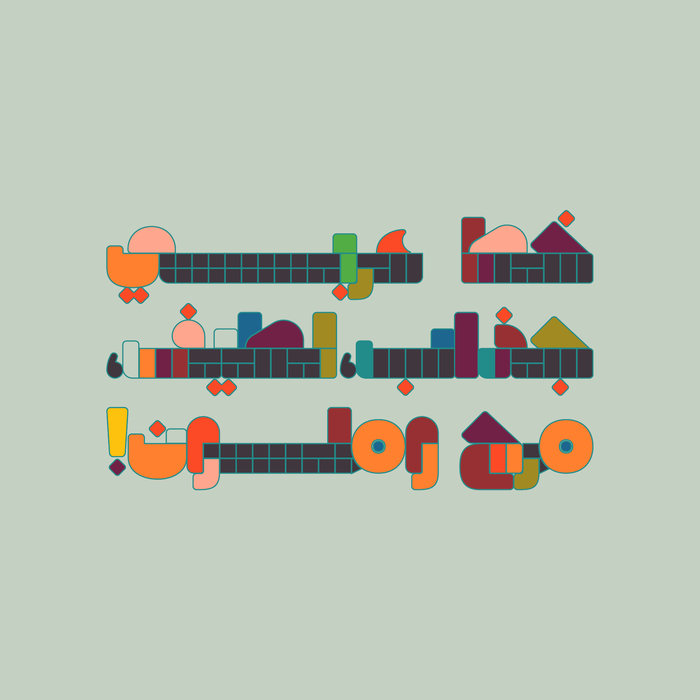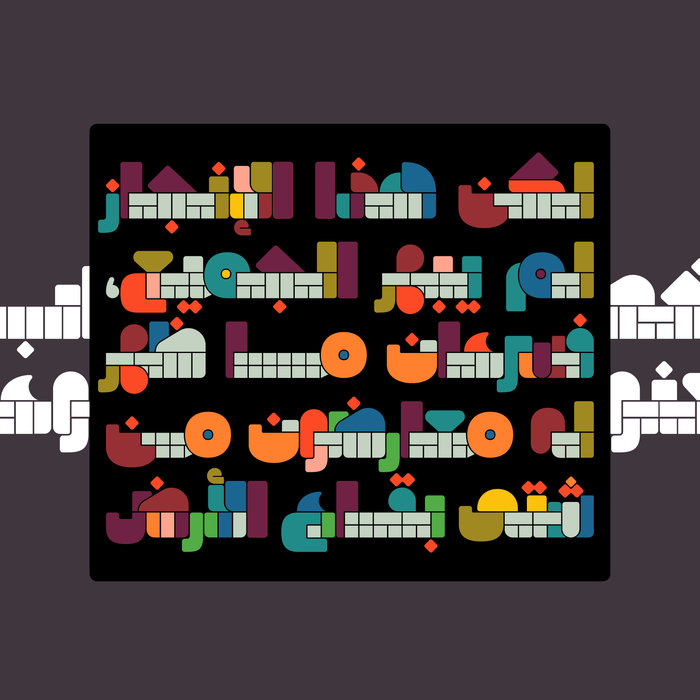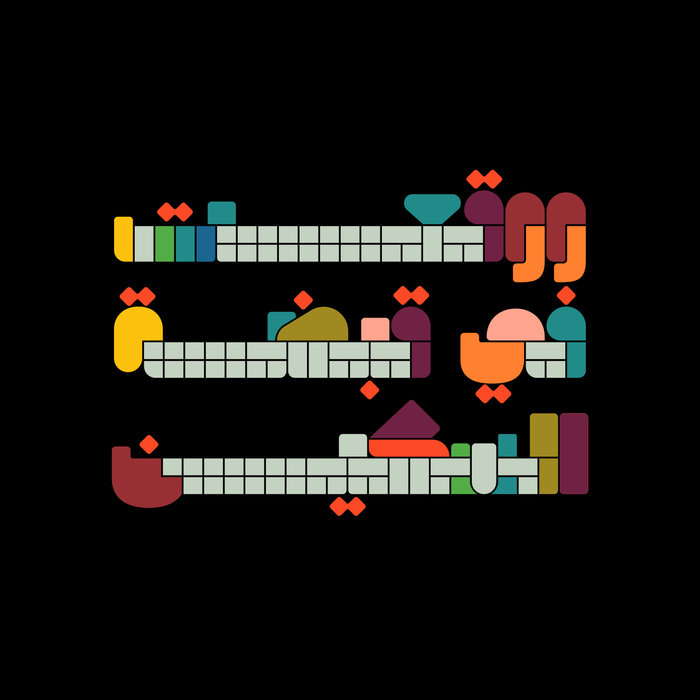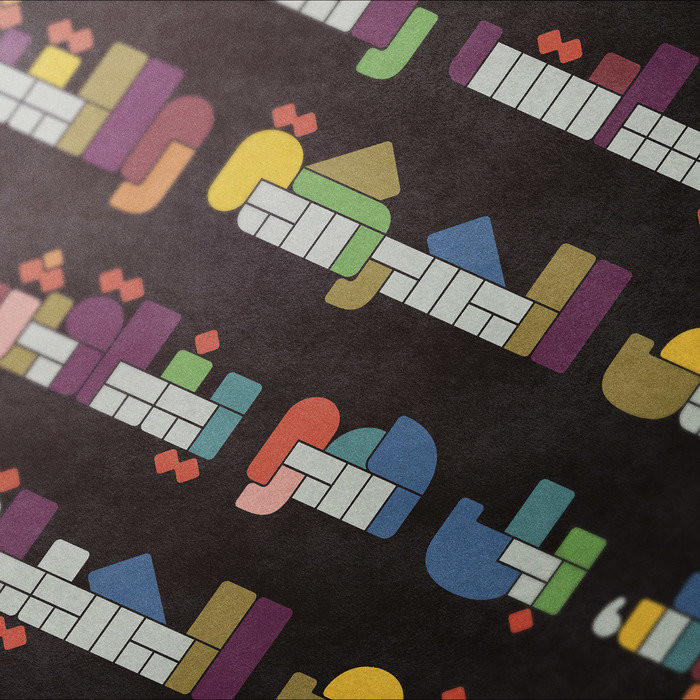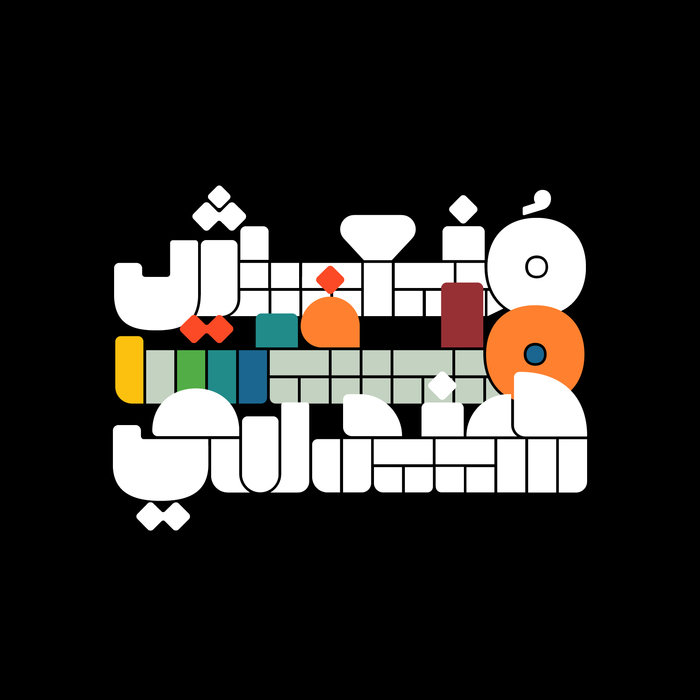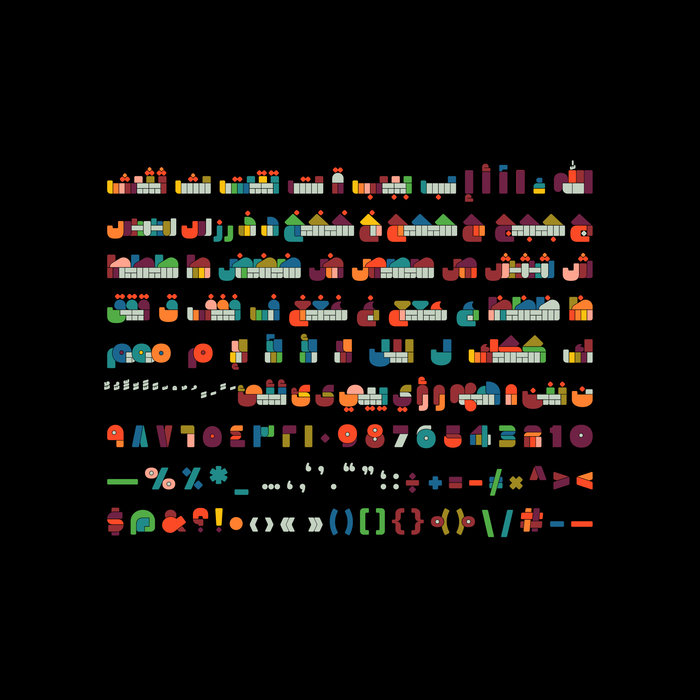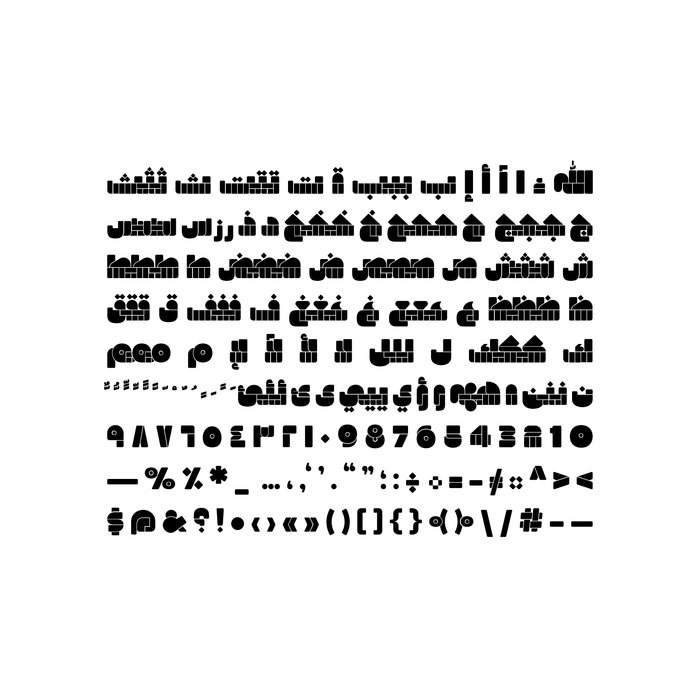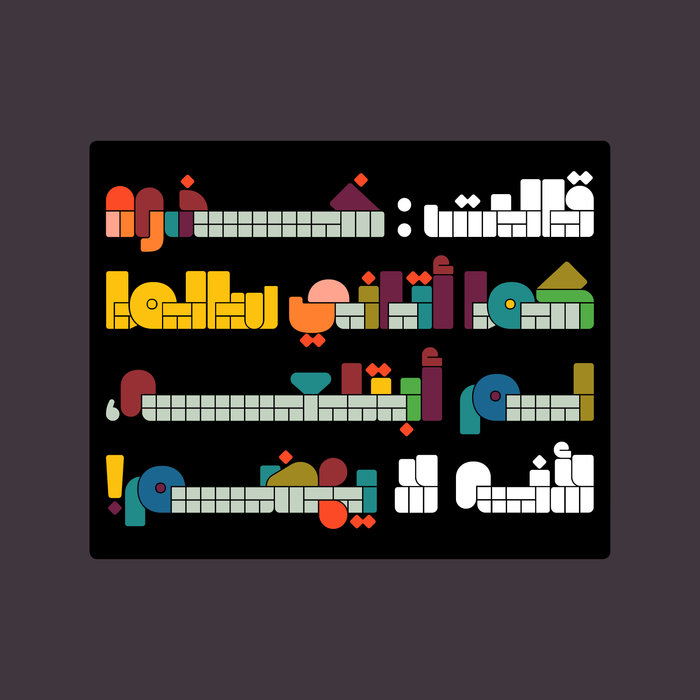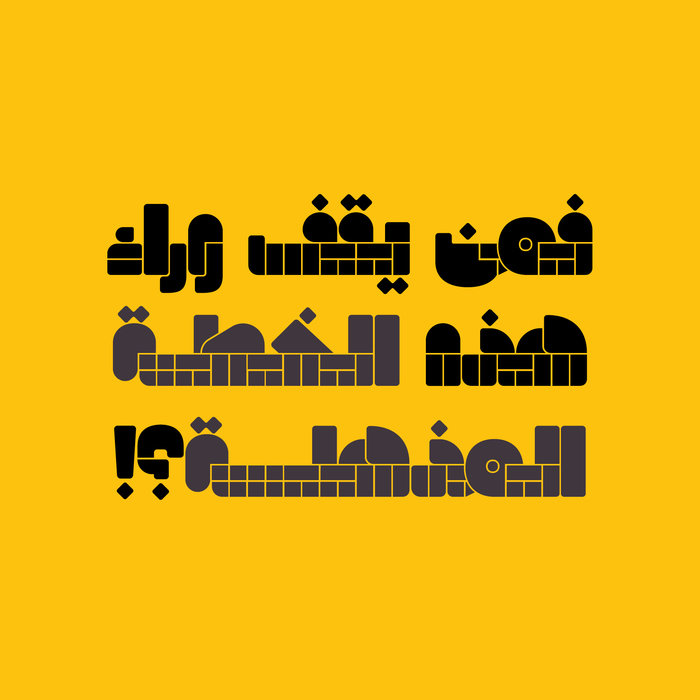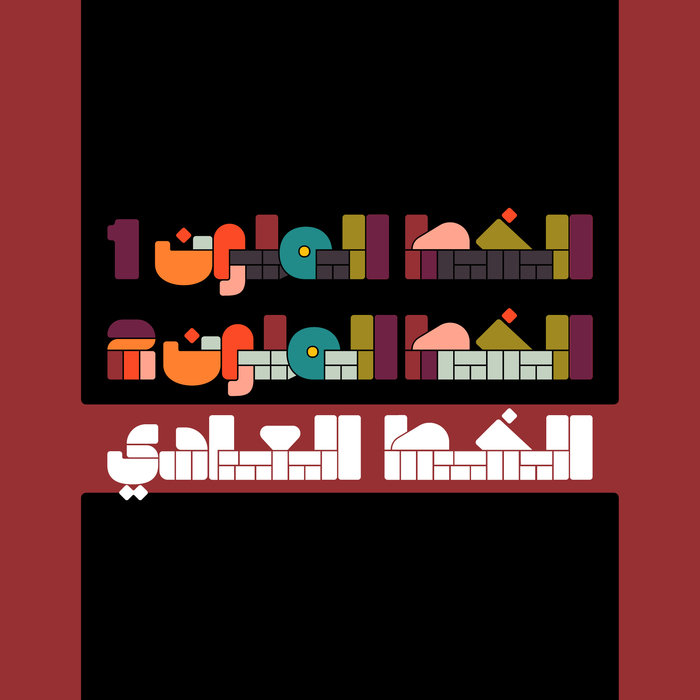
Tarakeeb - Arabic Color Font خط عربي ملون
Tarakeeb is an experimental Arabic font that features brick-like letterform design with joyfull color palette. It is an OpenType-SVG font family that consists of two colorful fonts in addition to an ordinary OTF font. Tarakeeb suits contemporary design projects including web, print and mobile applications.